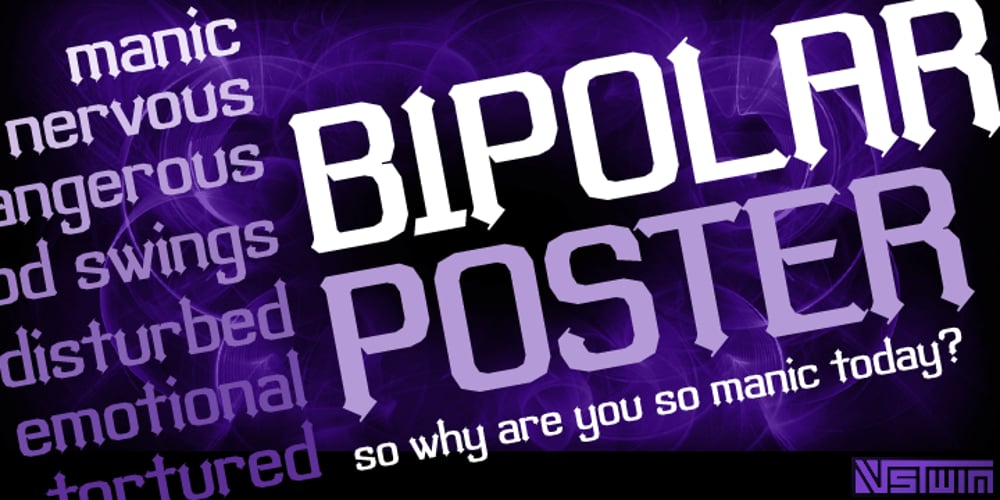
Bipolar Poster
Bipolar Poster font
Bipolar Poster Font Family was designed by Brian J. Bonislawsky, Brian Jaramillo and published by VersusTwin. Bipolar Poster contains 2 styles and family package options. The Bipolar Poster family of fonts adds extra weight and width to the Bipolar family to fonts. A mechanical blackletter enhancing readability while retaining ornamentation elements of the historical blackletter form.